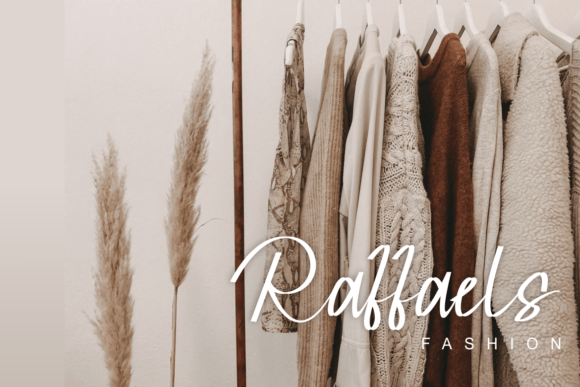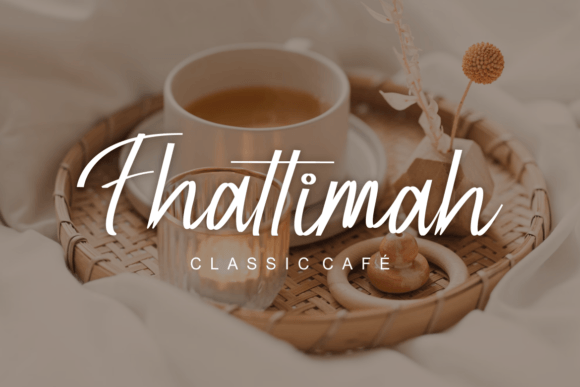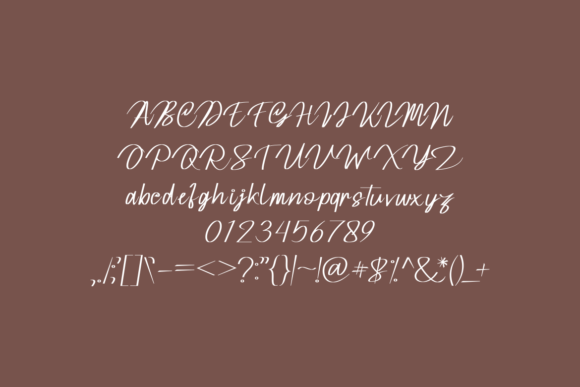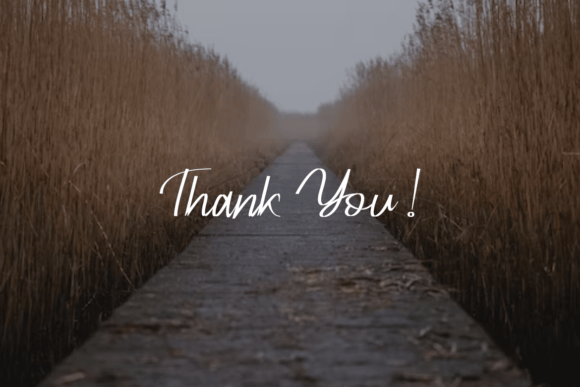
Introduction to Rettiar Script Font Font
Rettiar Script is a modern handwritten script font.
This elegant typeface is perfect for branding, logos, t-shirt printing, esports, and many more Outstanding in a wide range of contexts.